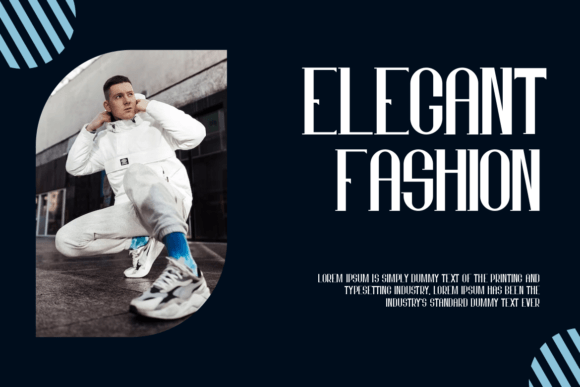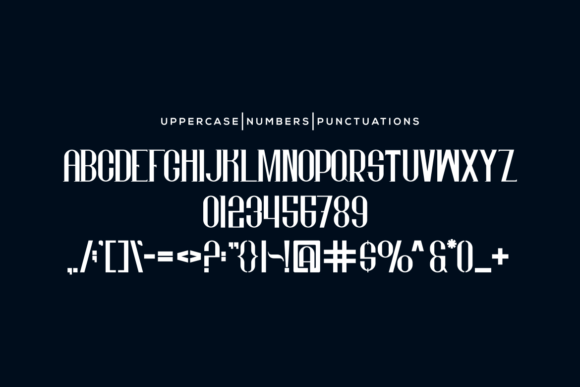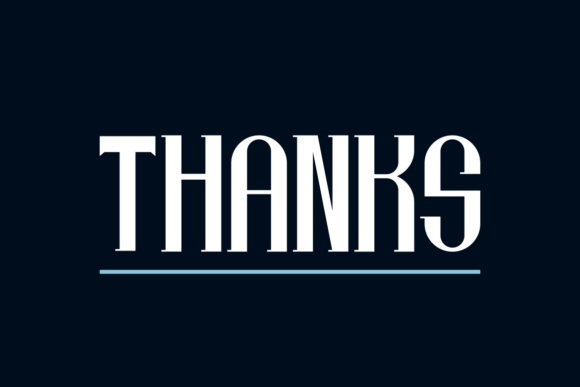
LAVINTOS FONT SPECIMEN
Lavintos is a modern-looking slab serif font. This font is suitable for titles, logos, typography, posters, magazines, brochures, packaging, websites, and much more for your design needs.
This font will bring freshness to your designs.